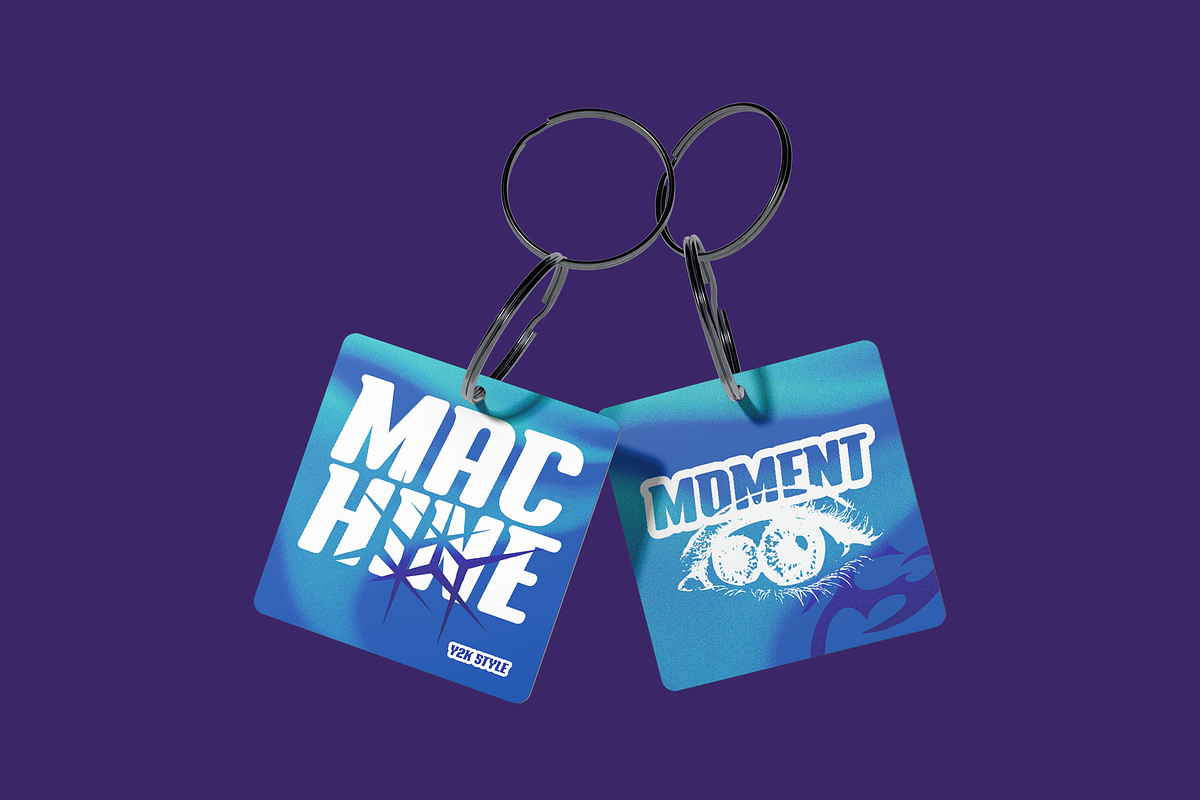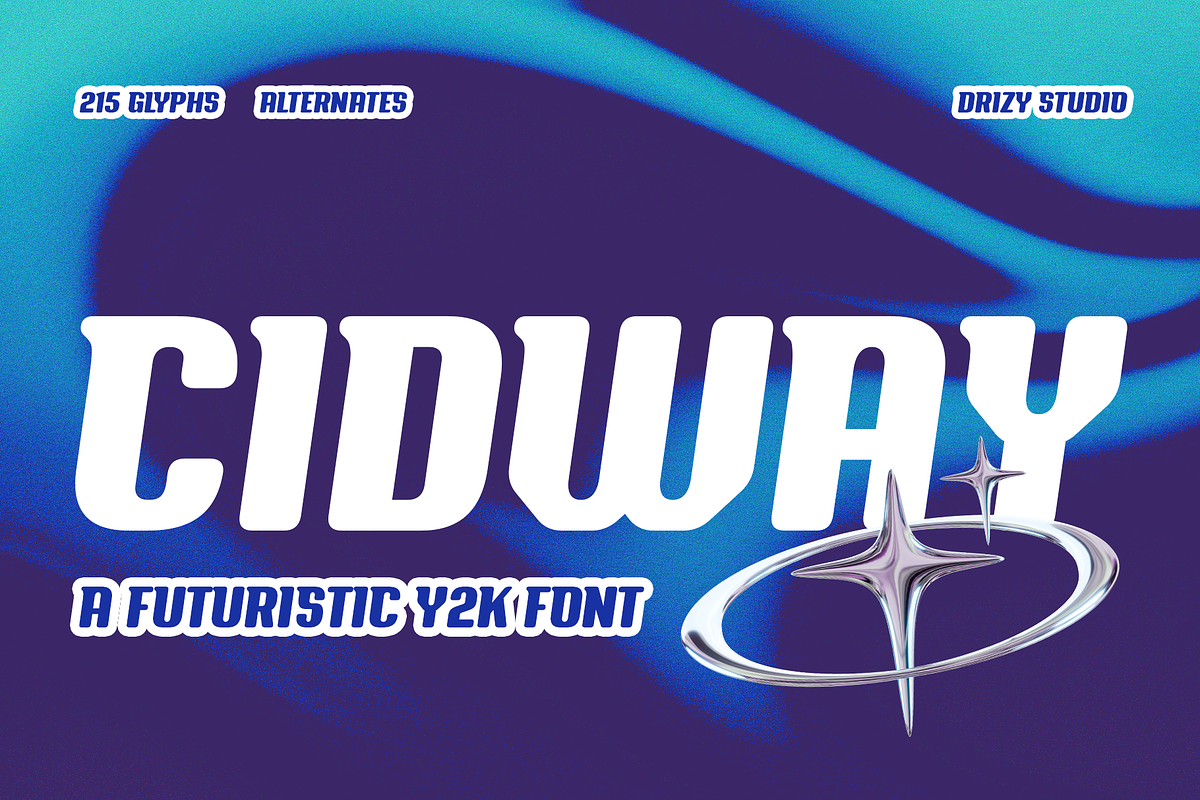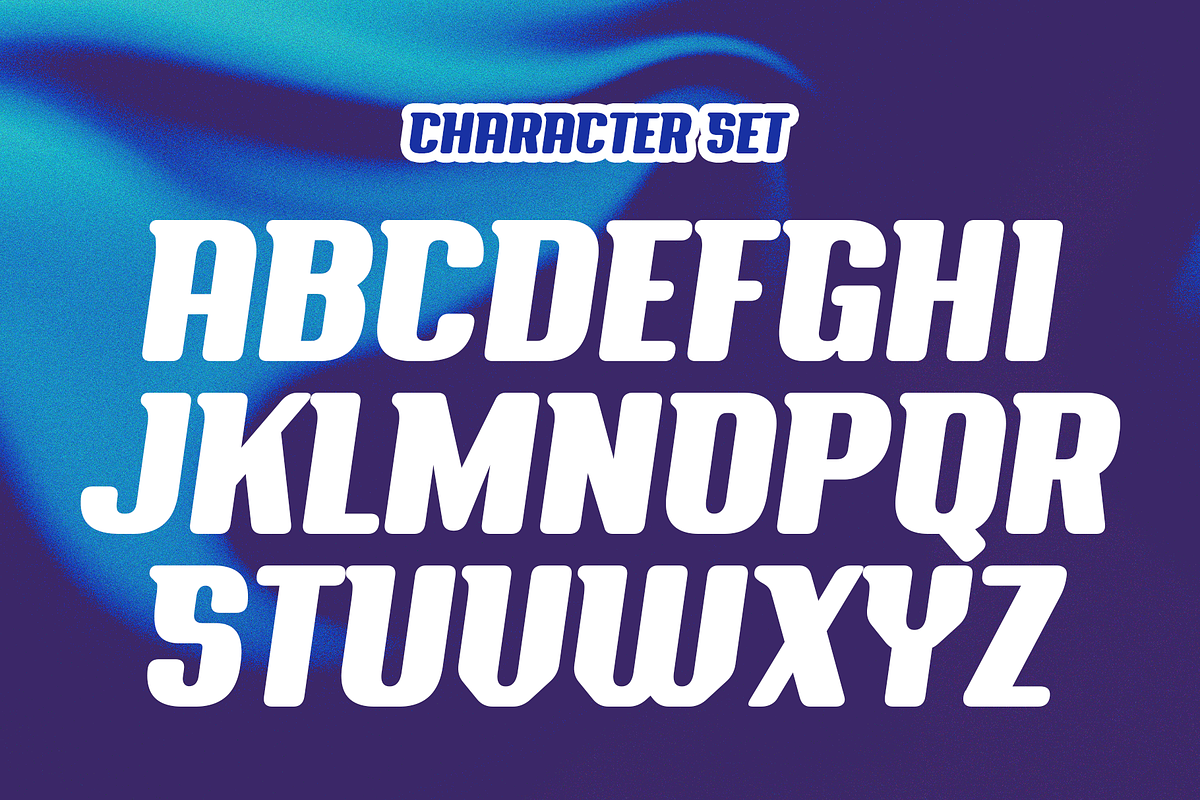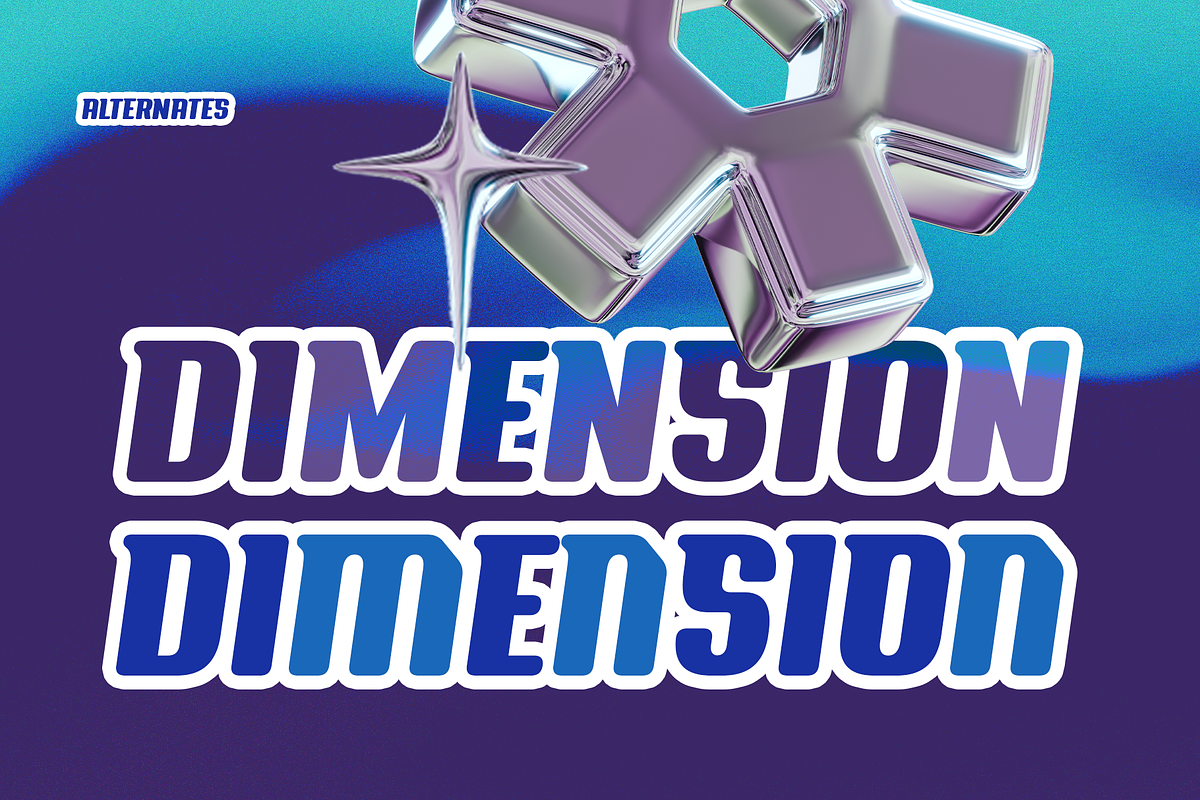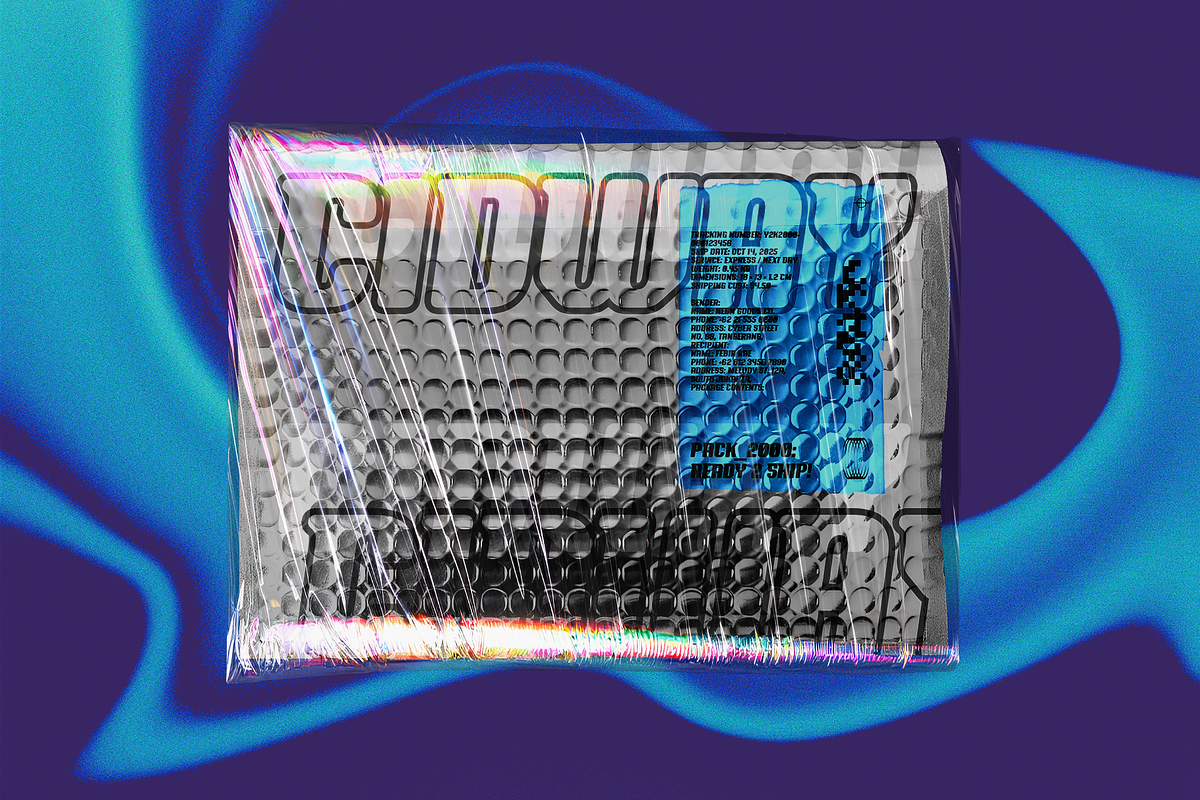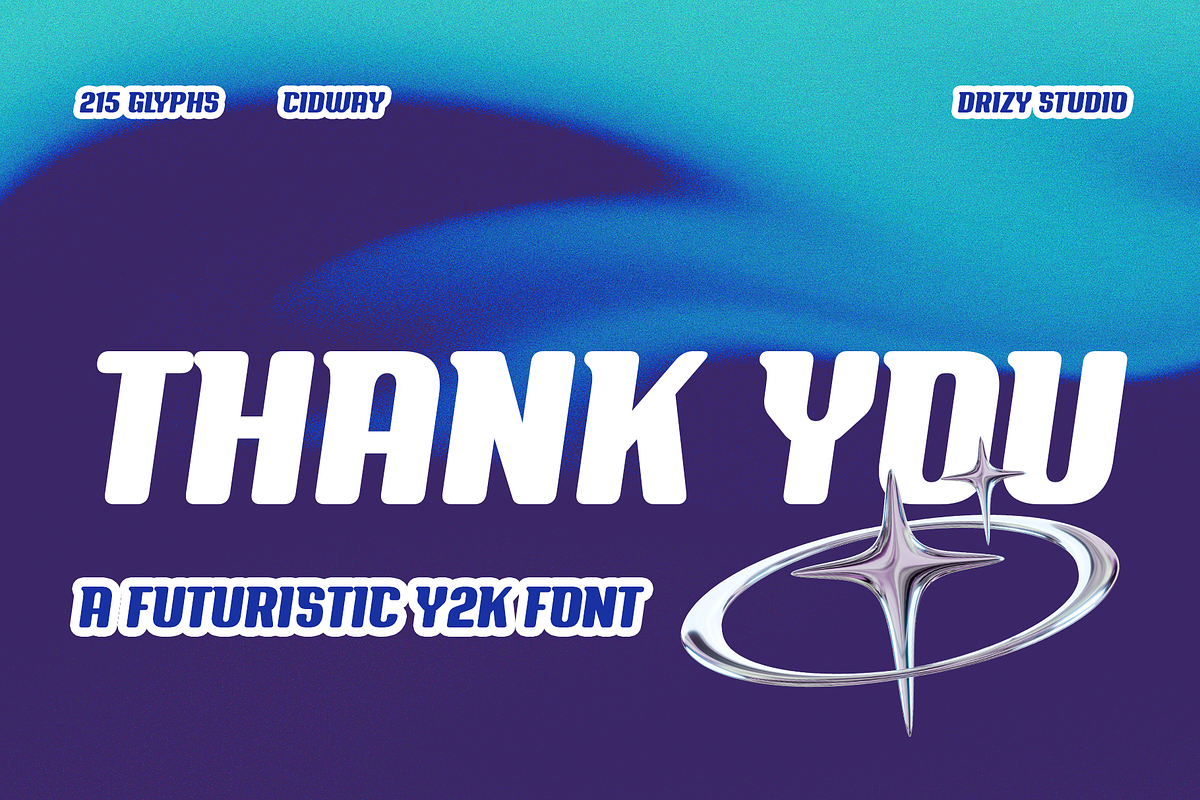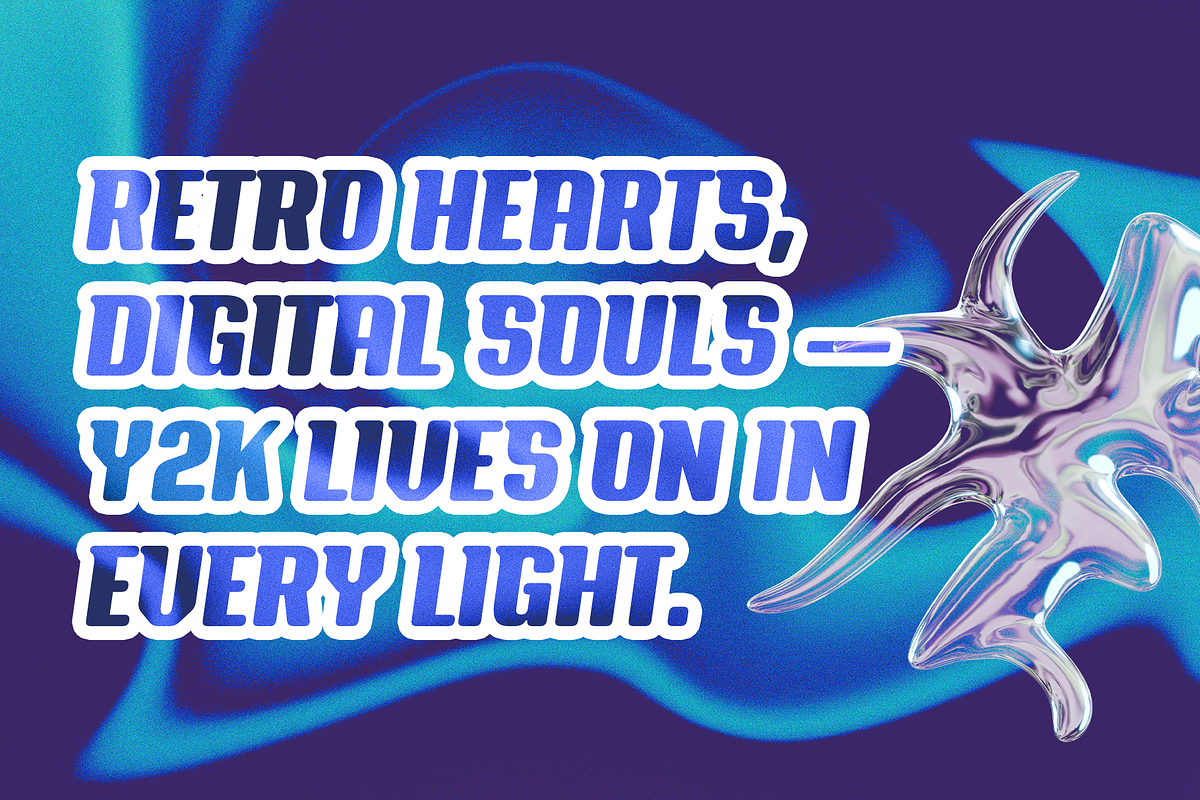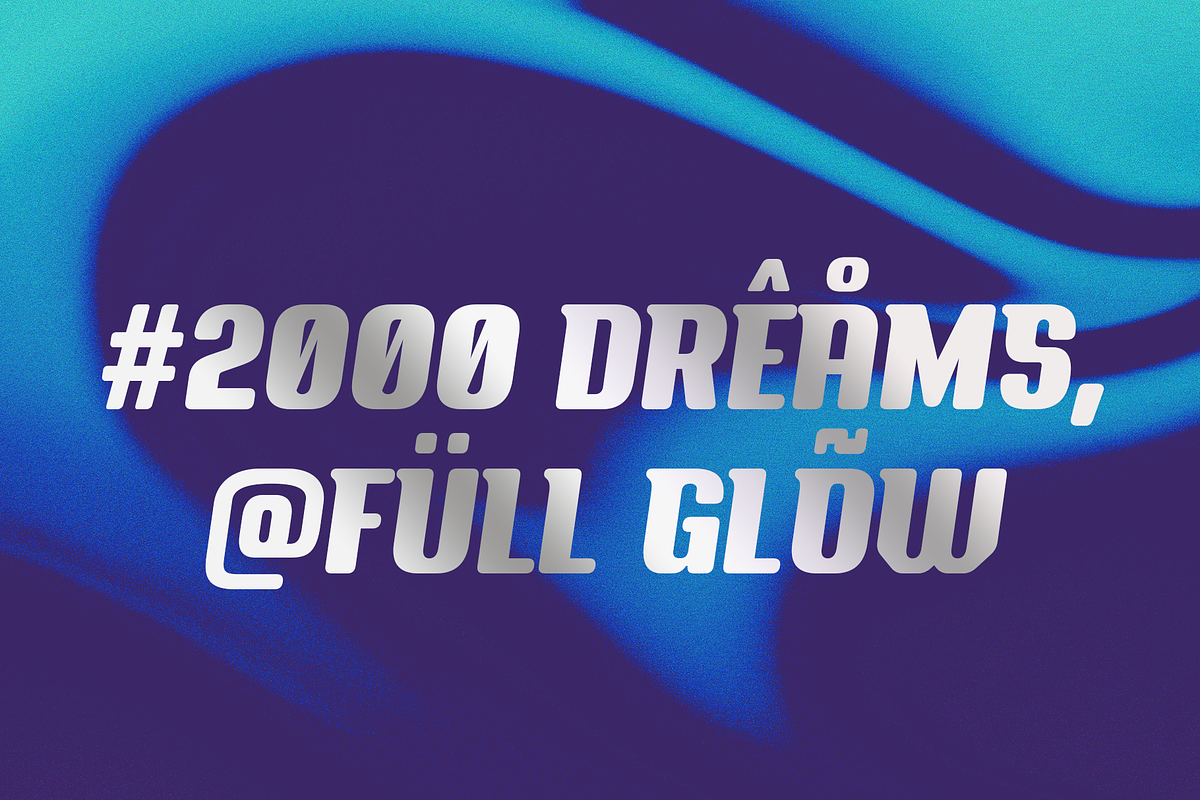
Cidway – Y2K Girly Font
Cidway – Y2K Girly Font is a playful throwback to early-2000s aesthetics, blending bubbly letterforms with a soft, feminine attitude. It captures the charm of retro pop culture: glossy magazines, flip phones, glitter stickers, and sparkly diary covers. Each character brings a cute, upbeat vibe that feels both nostalgic and modern.
Perfect for branding, social media quotes, fashion graphics, stickers, and any project that needs that girly Y2K flair. Cidway adds personality without trying too hard, making your designs feel fun, trendy, and full of charm.